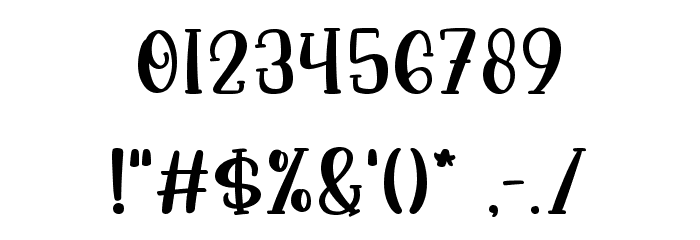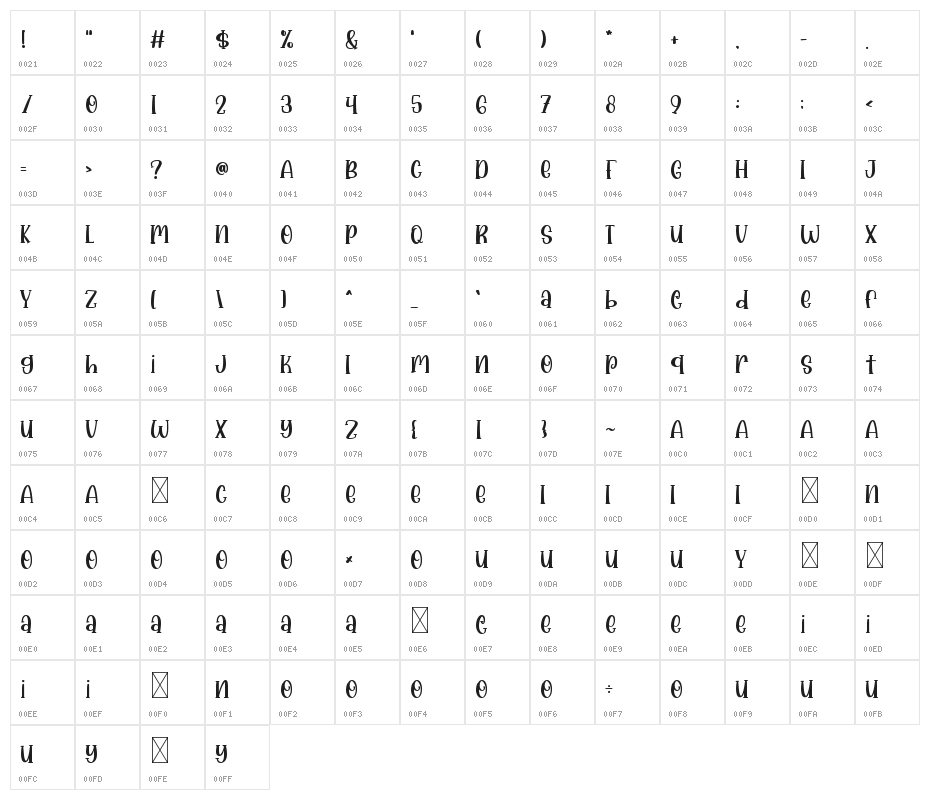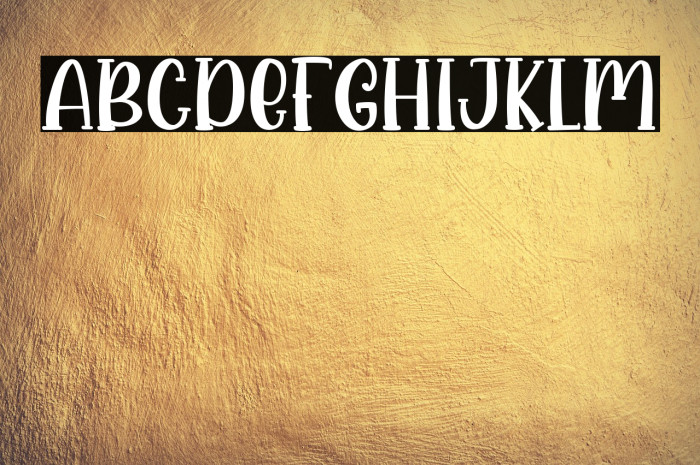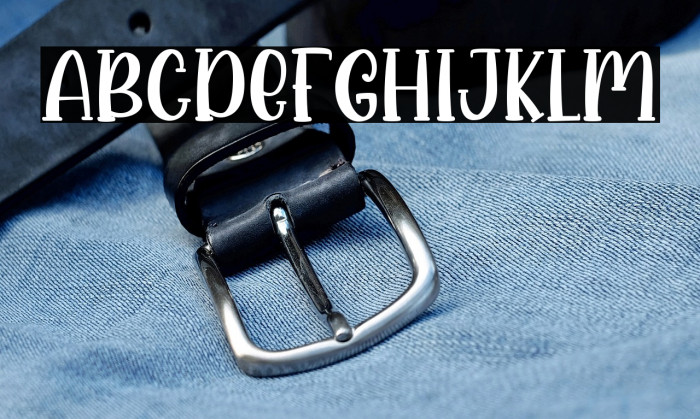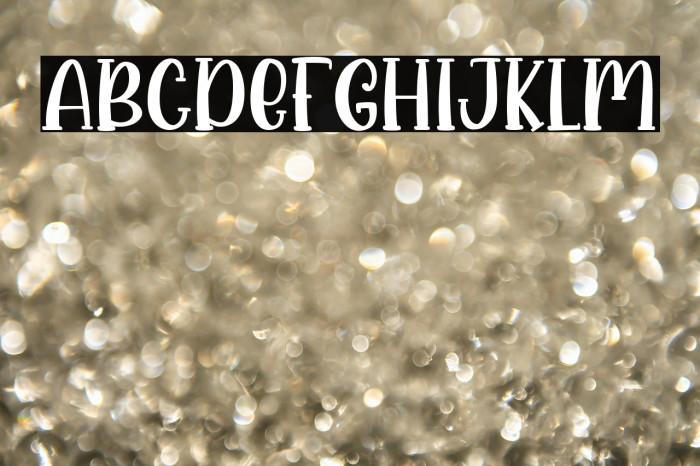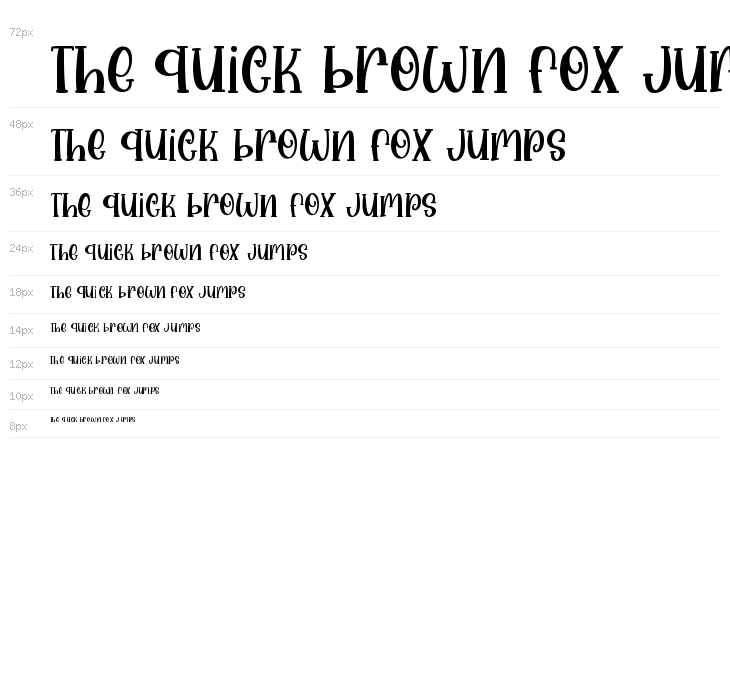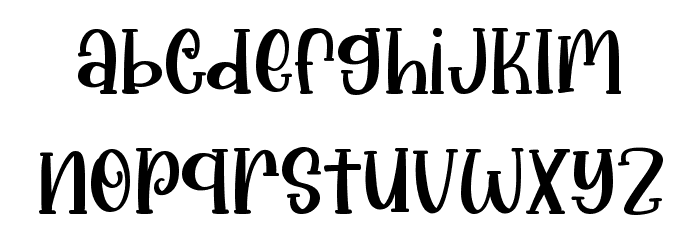
Spooky Party Font
Spooky Party Description
This font features a playful and whimsical design with a slightly spooky flair, perfect for themed events or creative projects. The letters are bold and rounded, with unique curves and flourishes that give it a distinctive character. The uppercase and lowercase letters maintain a consistent style, with some letters featuring exaggerated loops and swirls. The numbers and special characters follow the same playful aesthetic, making it versatile for various uses. Its overall appearance is eye-catching and fun, ideal for capturing attention in a lighthearted context.